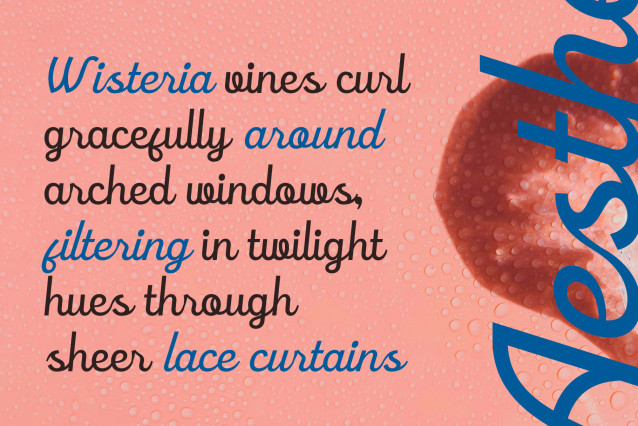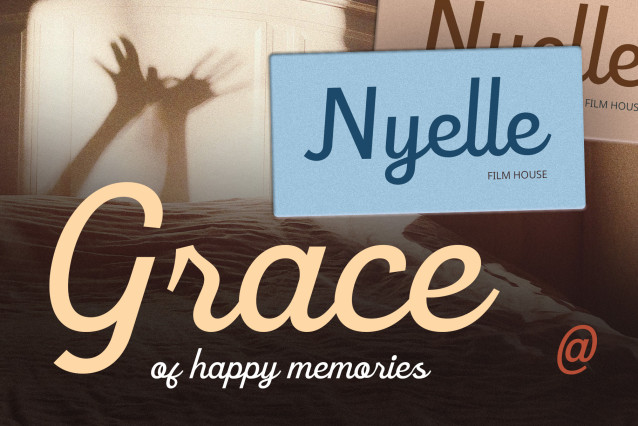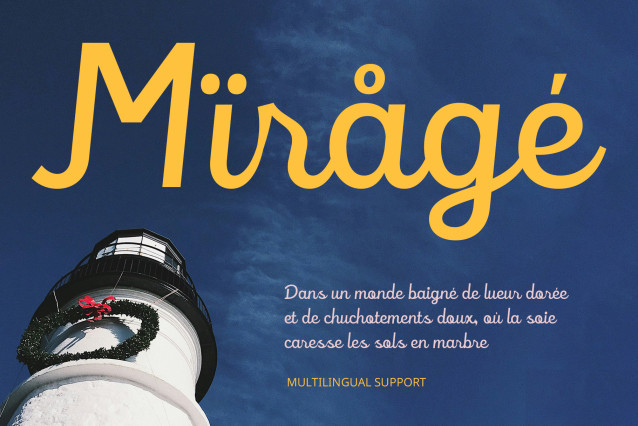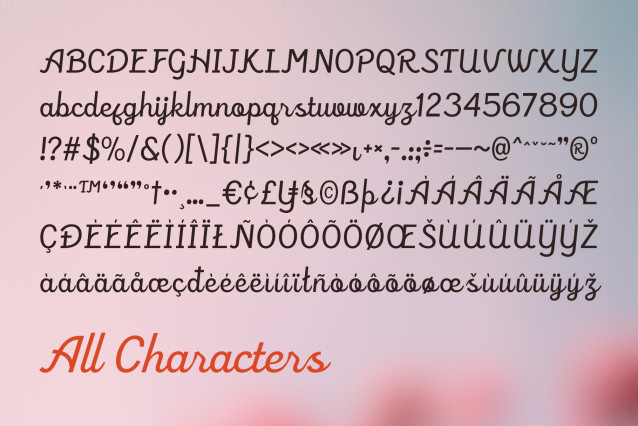
CS Rafles Font
CS Rafles – Elegant Script Font
Rafles is a modern script font that showcases a smooth, flowing cursive style designed to evoke elegance and charm. With every stroke carefully balanced, this typeface merges the natural beauty of handwriting with a refined contemporary aesthetic, resulting in a look that is both timeless and polished.